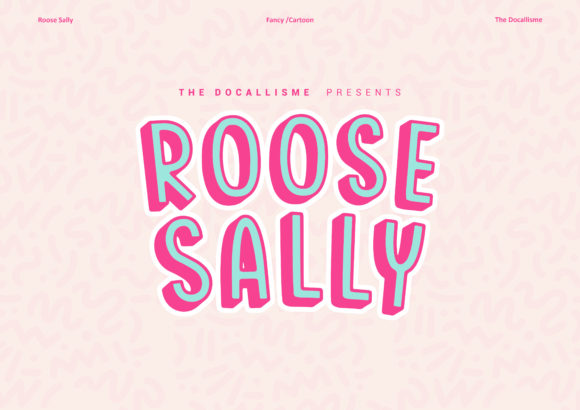
Feast your eyes on Roose Sally Font, a display font that exudes coolness and boldness, captivating your audience with its adaptable personality. Immerse yourself in a world of endless design possibilities, where Roose Sally's versatility shines through, making it the perfect choice for a diverse range of creative endeavors.
Unleash your imagination and let Roose Sally Font dance across your digital canvas, adding a touch of playfulness and warmth to every project. From eye-catching headlines that demand attention to quirky logos that leave a lasting impression, Roose Sally Font is your trusty companion, transforming your designs into masterpieces.
With Roose Sally Font as your secret weapon, you'll effortlessly craft designs that resonate with your audience, leaving them captivated and wanting more. Its versatility knows no bounds, making it the perfect choice for everything from vibrant posters that ignite emotions to sleek branding that exudes professionalism.
Step into the spotlight and let Roose Sally Font elevate your design game. Its unique charm will add a spark of creativity to your projects, making them stand out from the crowd. Whether you're a seasoned designer or just starting your creative journey, Roose Sally Font is your passport to design excellence.